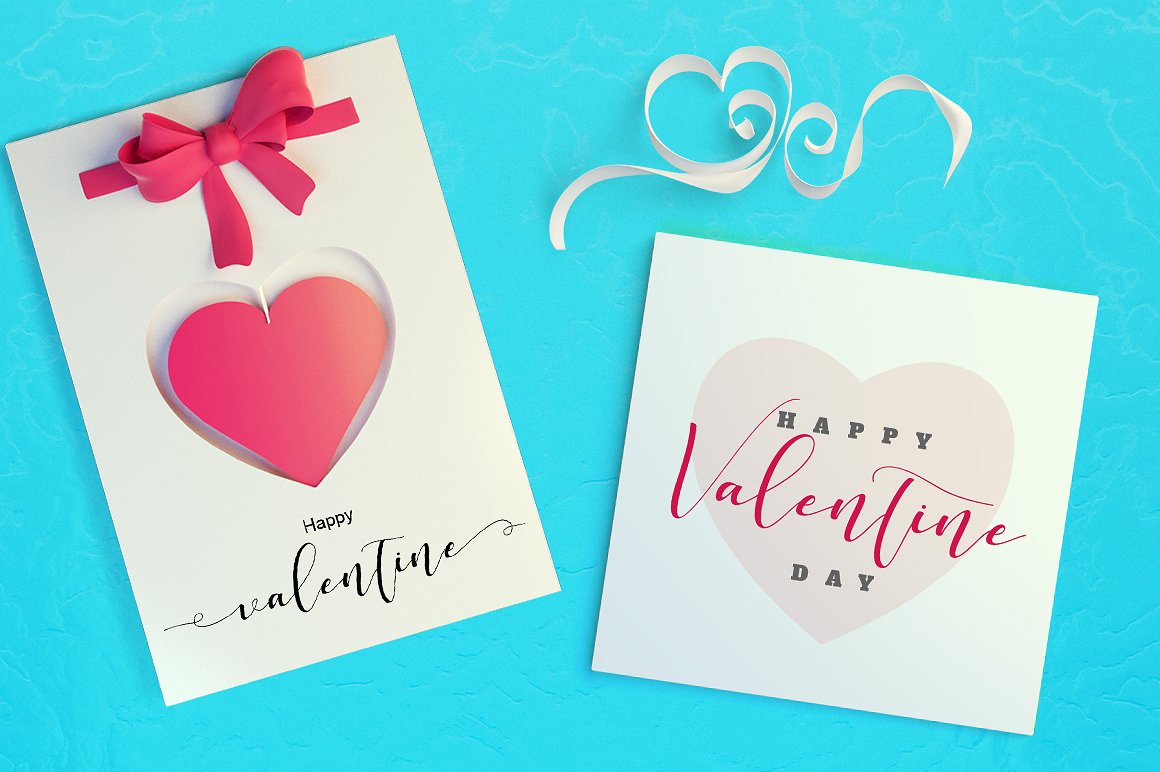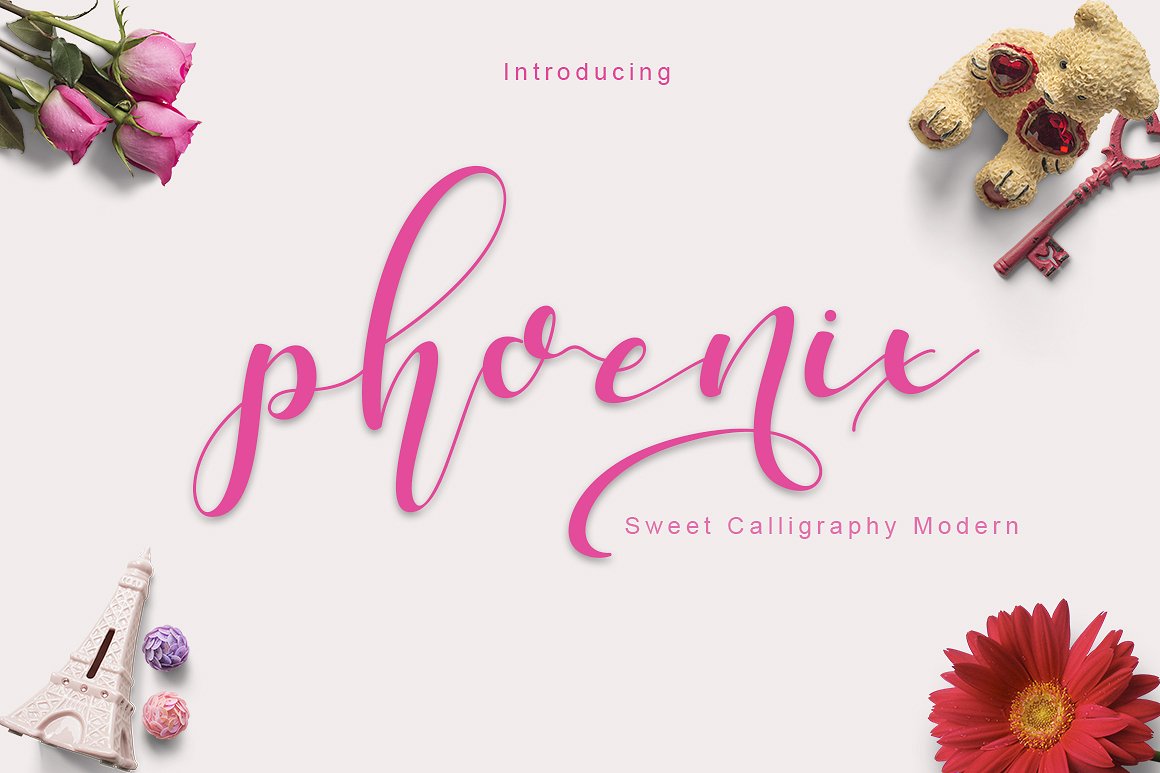
Phoenix Calligraphy
Phoenix Calligraphy Font
phoenix a sweet calligraphy modern script style, decorative characters and a dancing baseline! So beautiful on invitation like greeting cards, branding materials, business cards, quotes, posters, and more!!